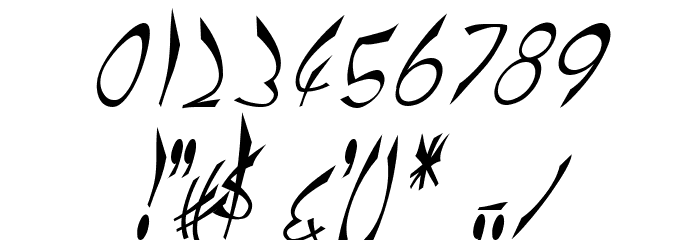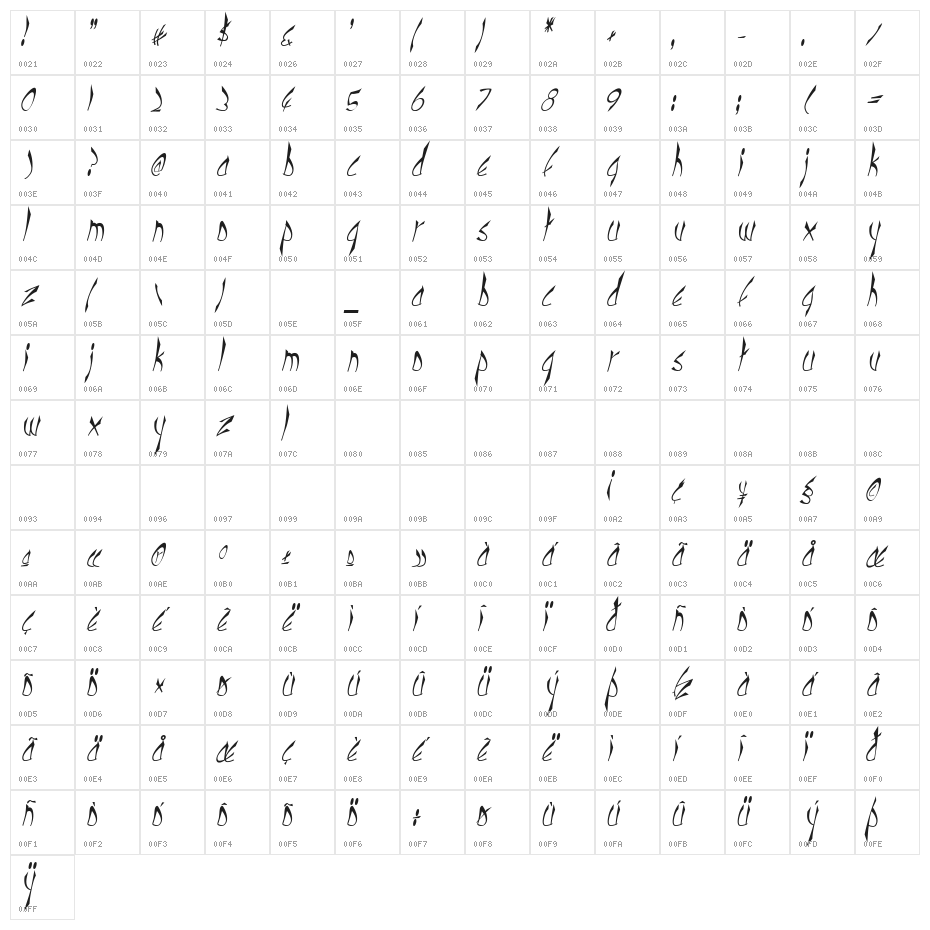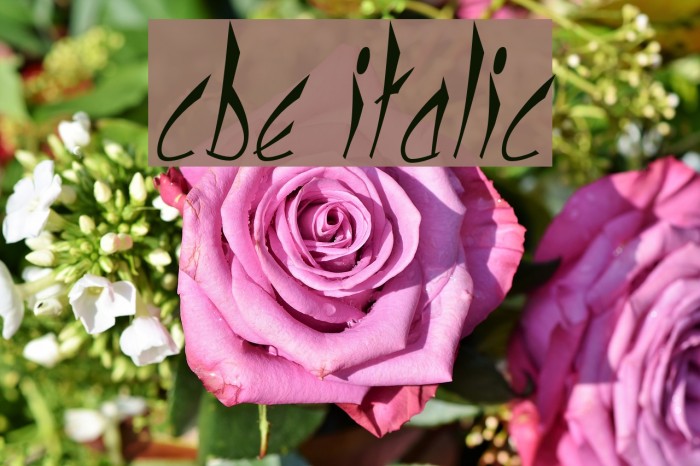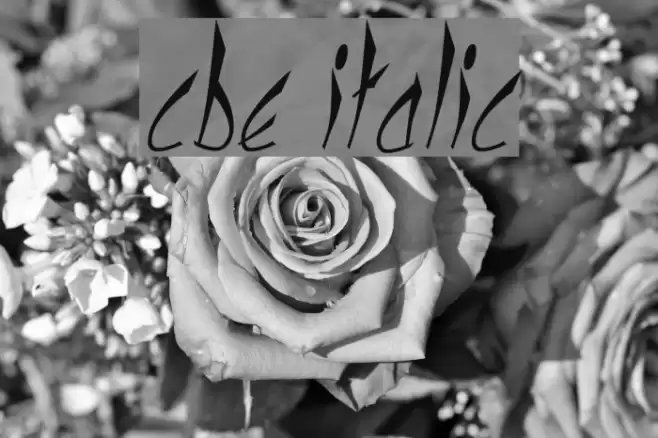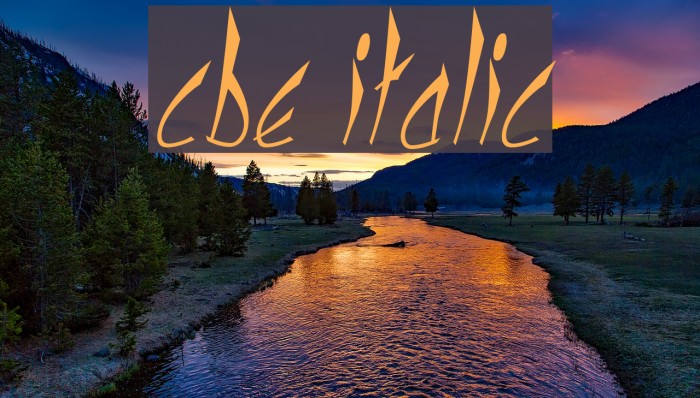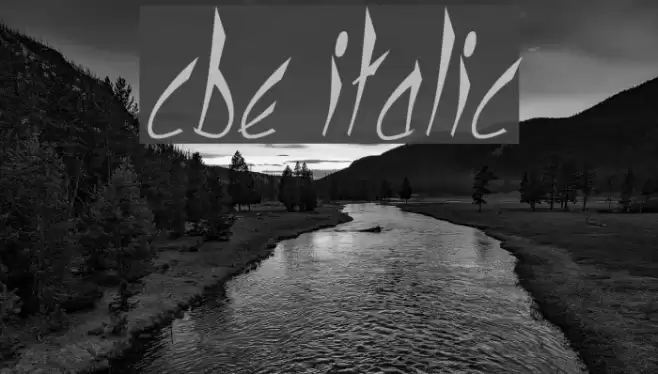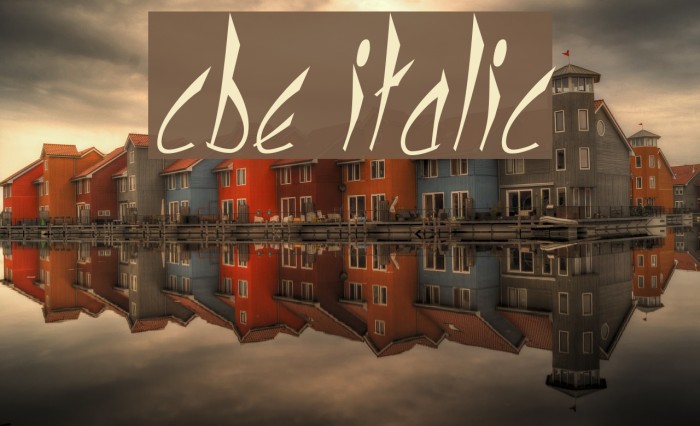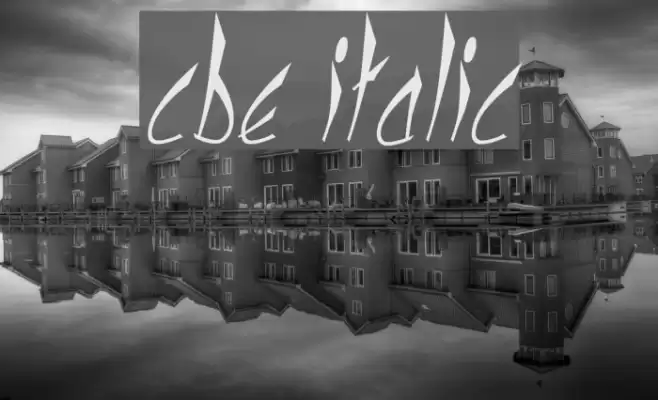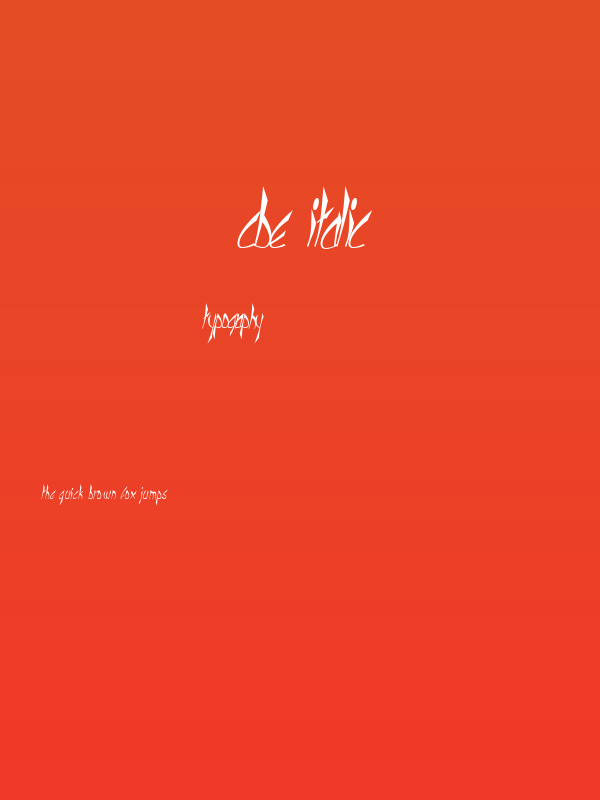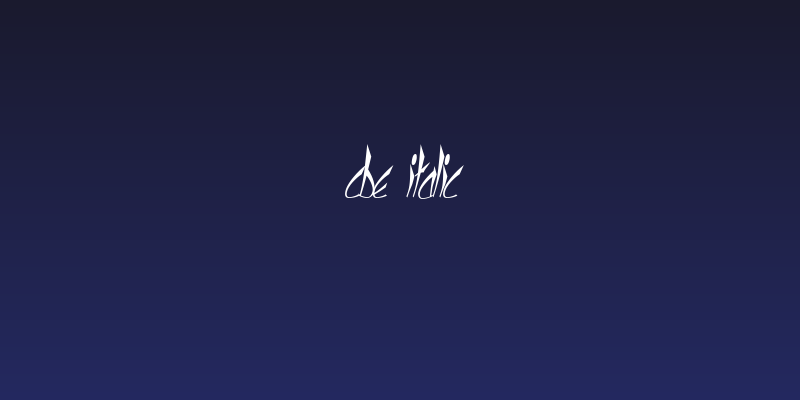
cbe Italic Font
cbe Italic Description
This font exhibits a dynamic and energetic style, characterized by its sharp, angular strokes and a distinct italic slant. The letters are elongated and slightly condensed, giving a sense of movement and speed. The uppercase and lowercase letters maintain a consistent style, with a unique flair in the curves and terminals. The numbers and special characters follow the same aesthetic, ensuring uniformity across all glyphs. The font's high contrast between thick and thin strokes adds to its dramatic appearance, making it stand out in any design. Its artistic and modern look is ideal for projects that require a bold statement.
| Use Case | Logos, Headlines |
| Proposed Projects | Ideal for branding, posters, and editorial design where a bold, artistic statement is needed. |